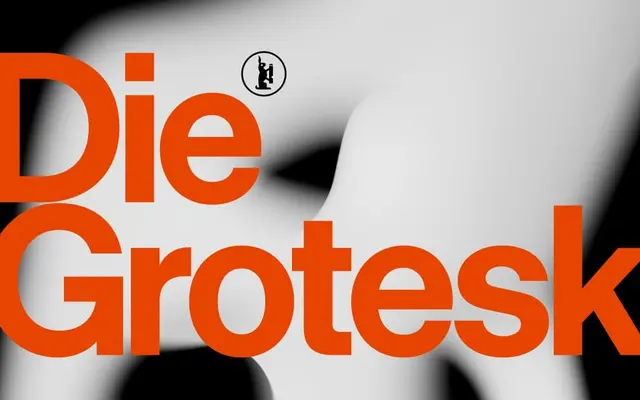
Die Grotesk
Klim Type Foundry · Kris Sowersby · 2025
Klim's first retail variable grotesk, drawn in Helvetica's shadow with four optical sizes from 6pt to 42pt.
A neo-grotesque by Kris Sowersby, Klim's first retail variable font, drawn in what Klim call the long shadow of Helvetica through study of the original metal cuts and modernist masters. The family runs across four optical sizes (A at 6pt, B at 18pt, C at 30pt, D at 42pt) and eight weights from Hairline to Heavy with italics, with variable axes for optical size and weight when you want continuous control. Klim pitch it as both homage and critique, made for typographic texture that holds from caption to billboard.
Klim classifies it as Modern: Lineal/Neo-grotesque; Klim's first retail variable font, shaped in the long shadow of Helvetica and rooted in study of original metal cuts plus modernist masters, with optical and weight axes for typographic texture across sizes.